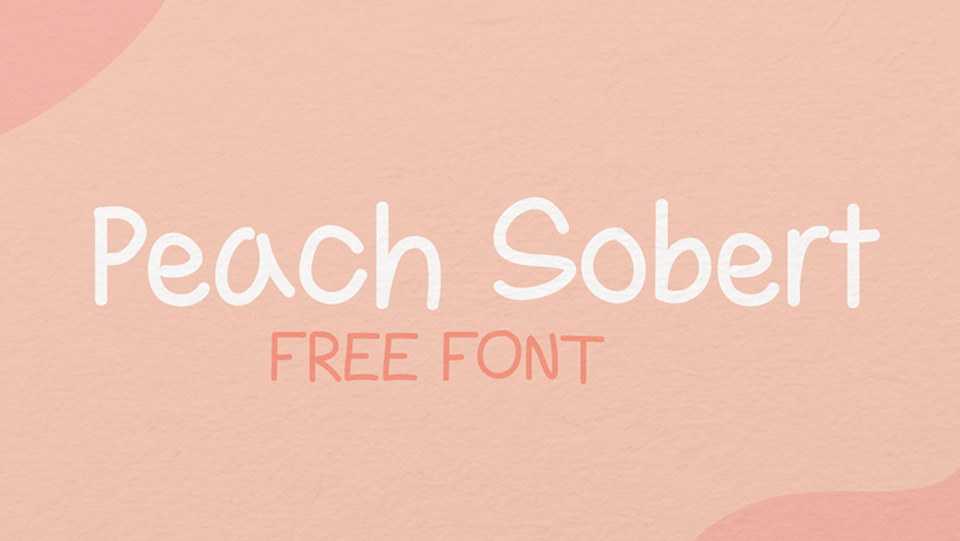
Download Peach Sorbet font, a cute and simple handmade script typeface. Peach Sorbet would be perfect for crafts, notes, party invitations, baby showers, birthday cards and more.
Designer: Amanda Flôr